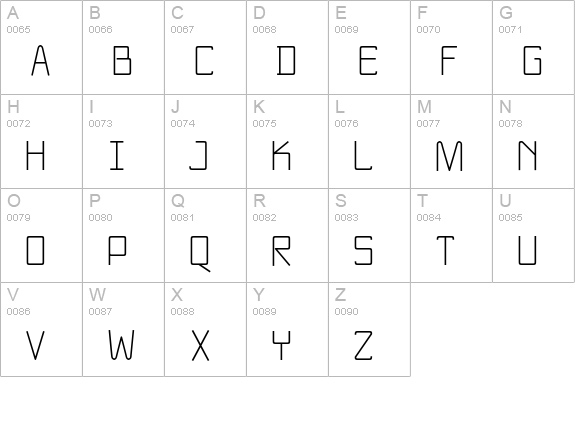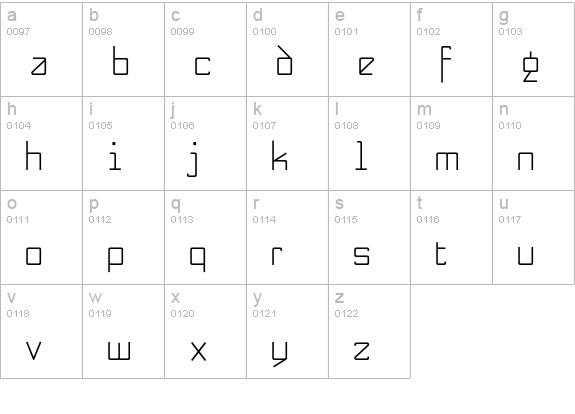
ReykjavikFine Font Details
Introducing ReykjavikFine, a captivating and versatile font that is sure to make any design project stand out. With its sleek and sophisticated appearance, ReykjavikFine offers a perfect balance between elegance and modernity. This font is meticulously crafted to bring a touch of refinement to your creative endeavors. ReykjavikFine boasts a stunning collection of uppercase and lowercase letters, as well as numerals and punctuation marks, all designed with meticulous attention to detail. Each character in this font exudes a unique charm that effortlessly captures attention. Whether you are working on a logo, branding materials, advertisements, or any other design project, ReykjavikFine is the perfect choice to add a touch of class and sophistication. Its clean lines and delicate curves give it a distinctive look that is both timeless and contemporary. What makes ReykjavikFine even more remarkable is that it is freely available to download at FontsMarket.com. This means that you can easily access this incredible font without any hassle. The seamless downloading process ensures that you can start utilizing ReykjavikFine in your designs right away. So, if you're looking for a font that effortlessly combines elegance, modernity, and versatility, look no further than ReykjavikFine. Download it for free at FontsMarket.com and let your creativity soar to new heights.